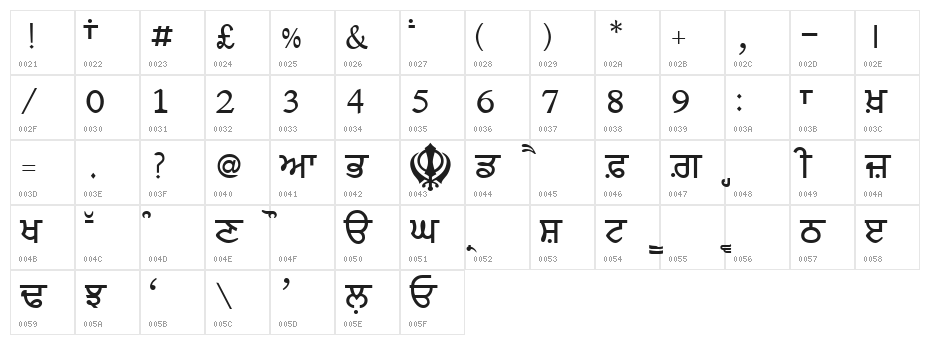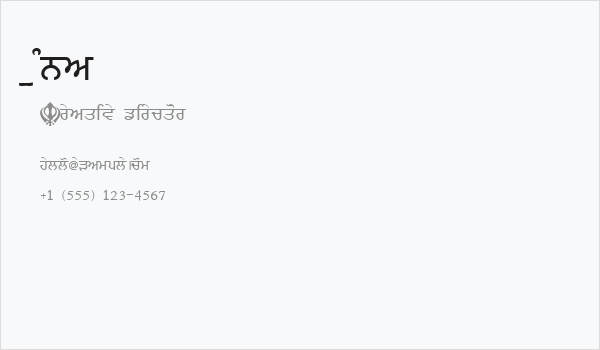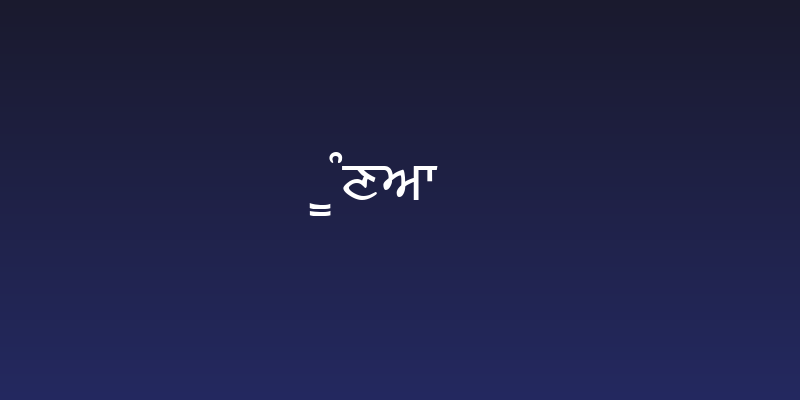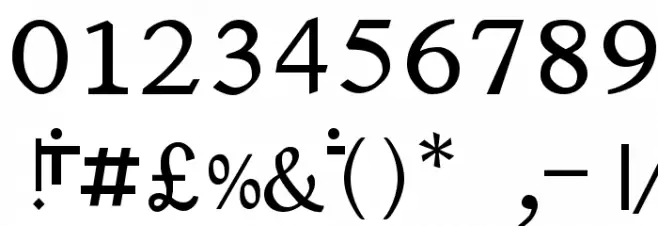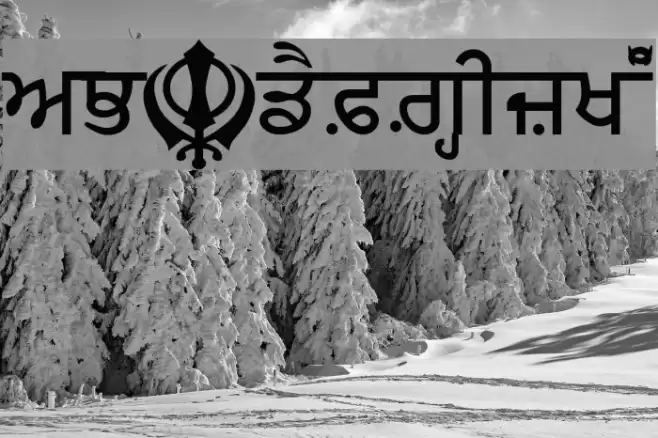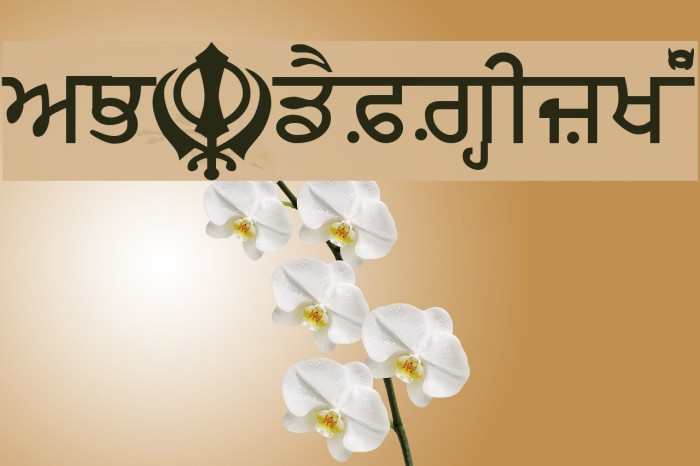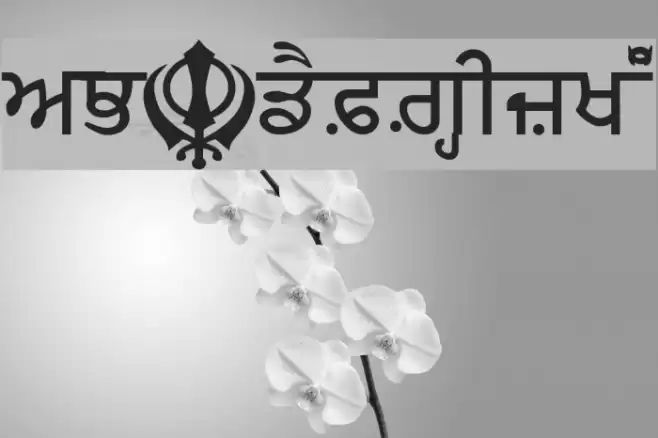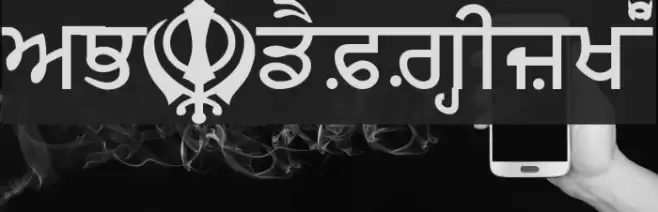
Muna Font
Muna Description
This font features a unique blend of traditional and modern elements, characterized by its bold and striking appearance. The characters are well-defined with a strong presence, making them highly legible. The script includes a variety of symbols and numerals, each crafted with precision. The overall design is balanced, with consistent stroke widths and a harmonious flow between characters. The font's style is versatile, suitable for both digital and print media, and it can be used to convey a sense of authority and elegance.